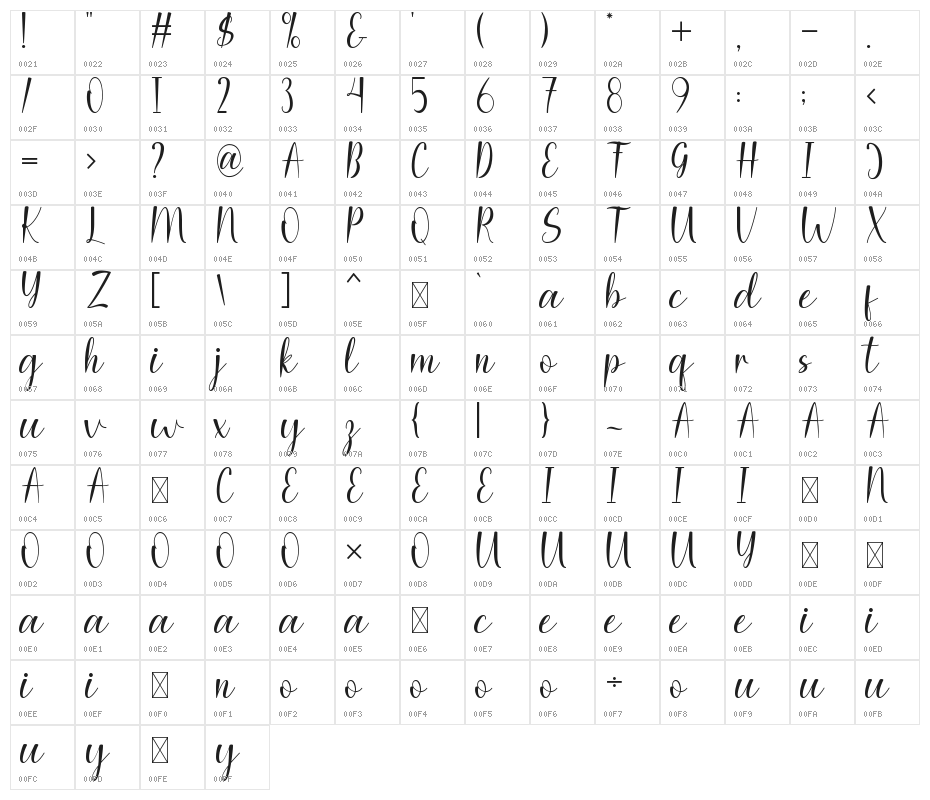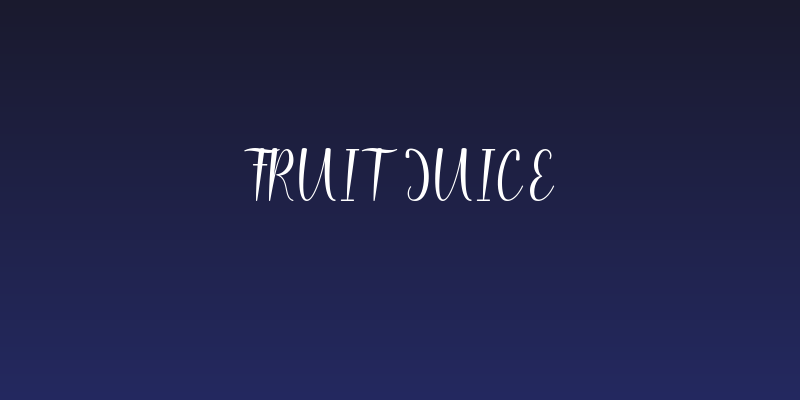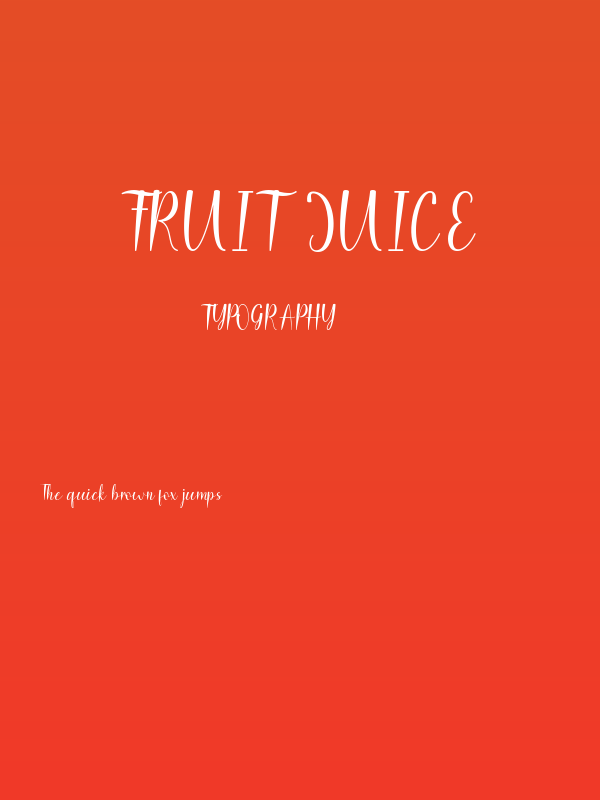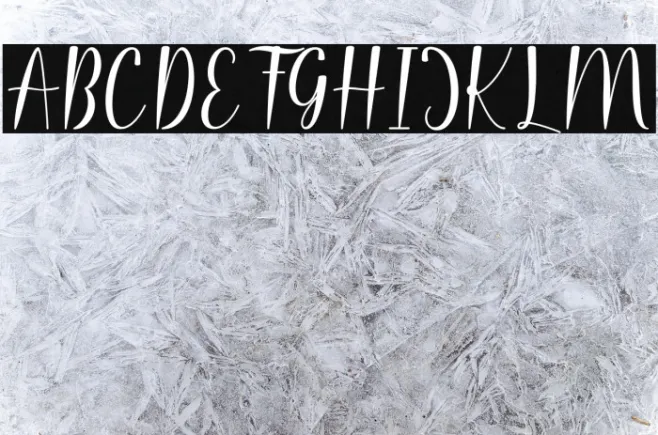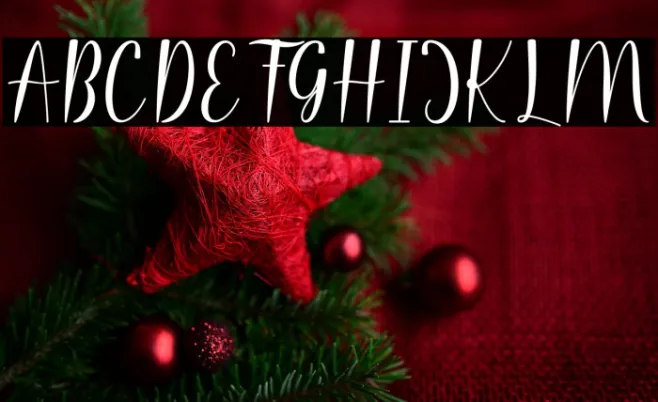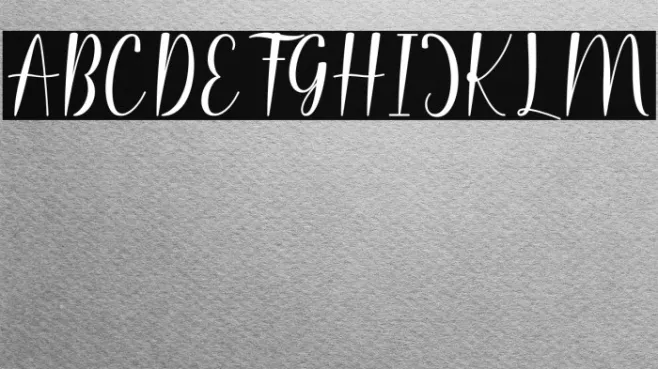
Fruit Juice Font
Fruit Juice Description
This font features a playful and energetic script style, characterized by its fluid and dynamic strokes. The uppercase letters are tall and slightly narrow, with a whimsical flair that adds a sense of movement. The lowercase letters maintain a consistent flow, with some characters featuring loops and swashes that enhance its lively appearance. The numerals are bold and distinct, complementing the overall style with their unique curves. Special characters are creatively designed, adding to the font's decorative appeal. This font is ideal for projects that require a touch of elegance and fun, making it suitable for invitations, branding, and creative designs.